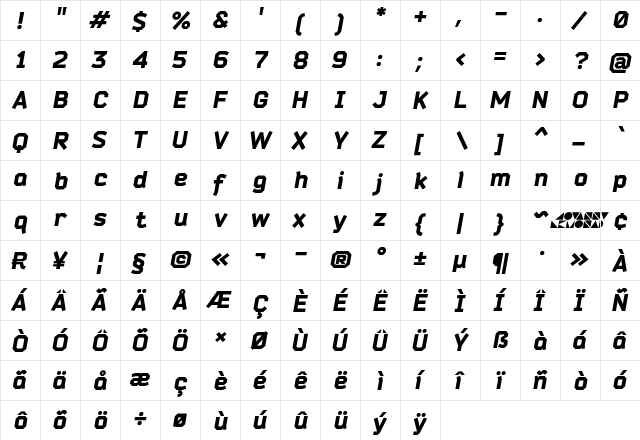
Bender Black Italic
| Foundry | Oleg Zhuravlev, Gladkikh Ivan |
| Designer | Oleg Zhuravlev, Gladkikh Ivan |
Design Context for Bender Typeface
Bender offers clean, dependable letterforms without strong stylistic allegiance, making it a practical choice for designers who need flexibility. Its italic angle brings a sense of urgency and motion to the letterforms.
Pro Tip: Use Bender for emphasis, pull quotes, and subheadings where its slanted energy can add rhythm to the layout.